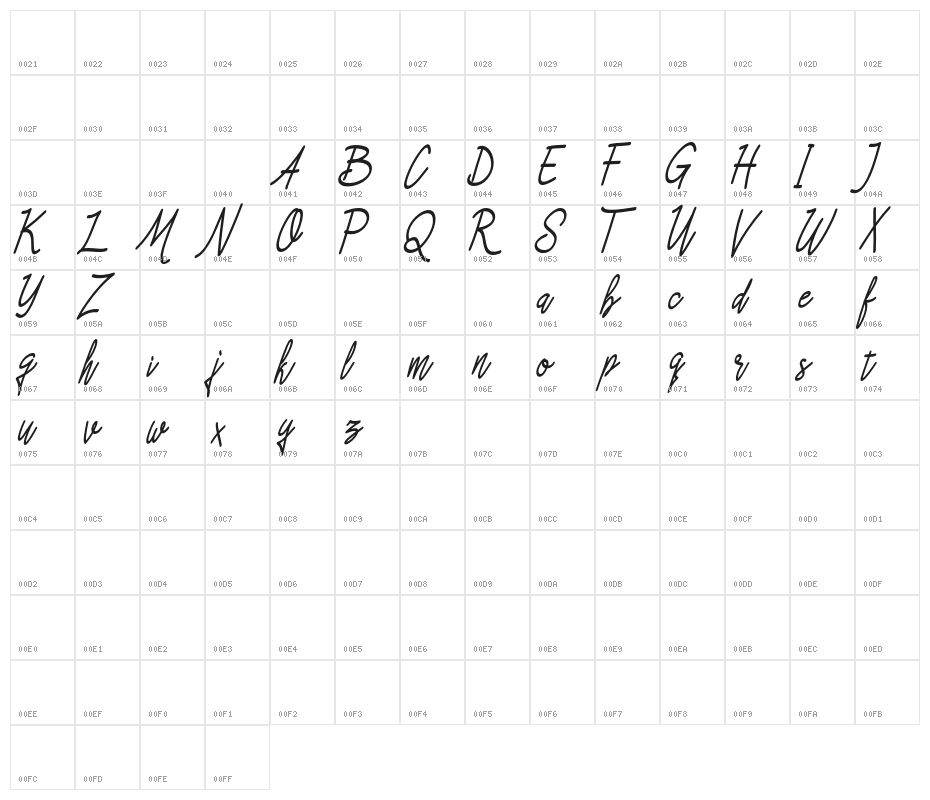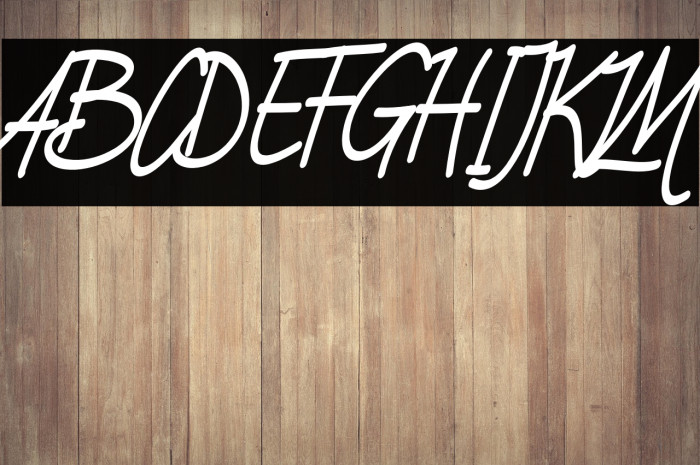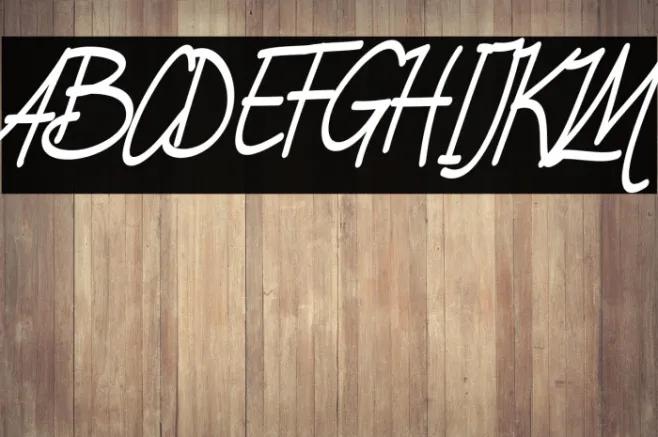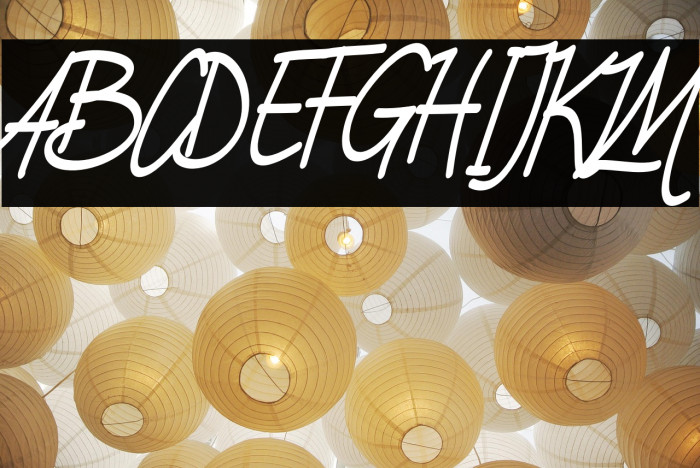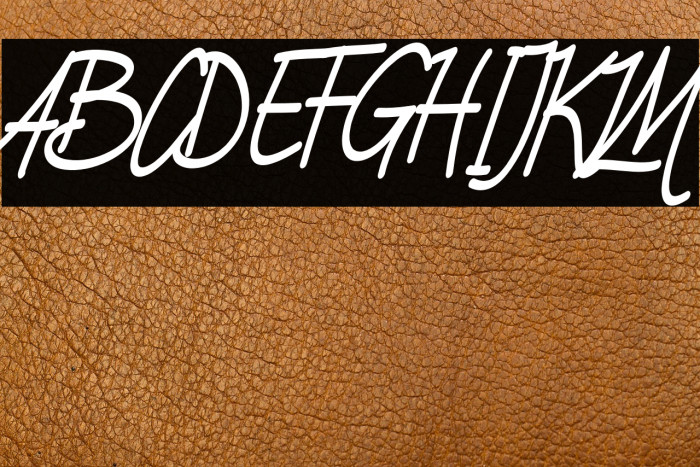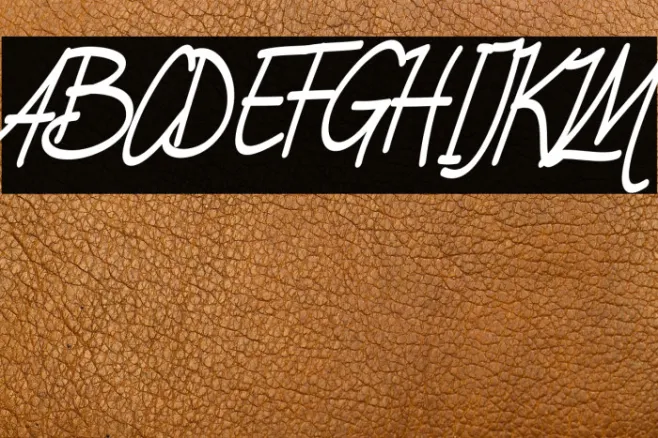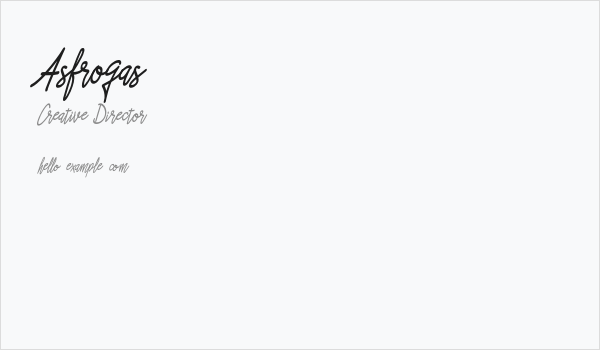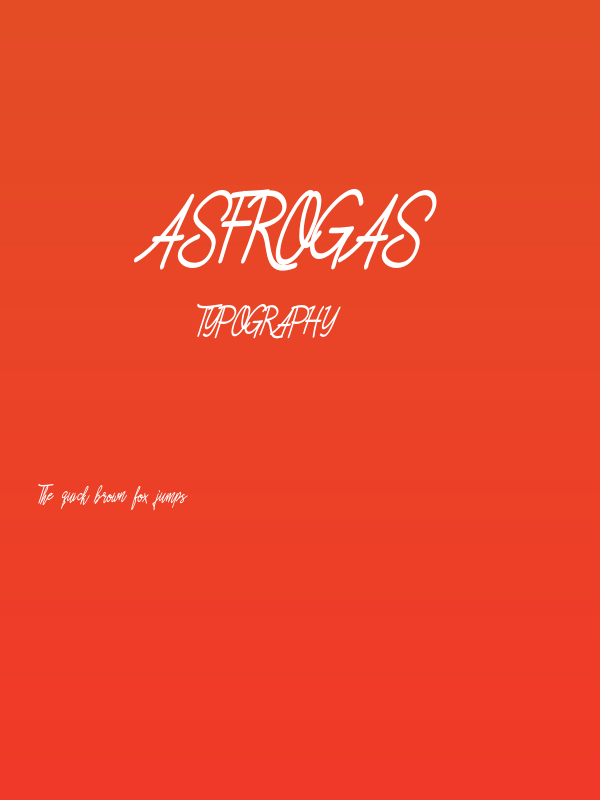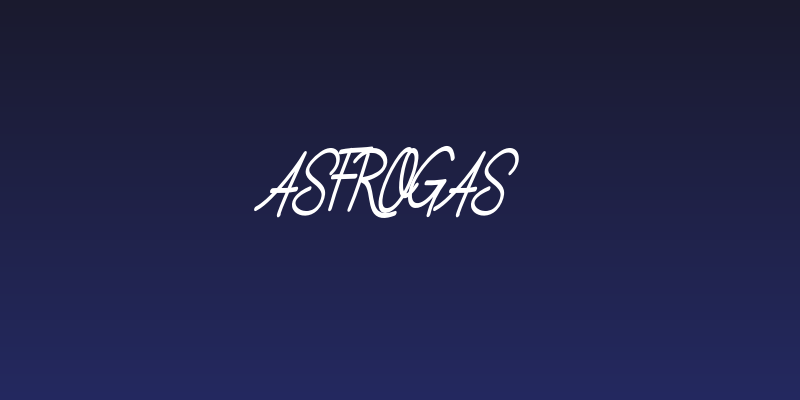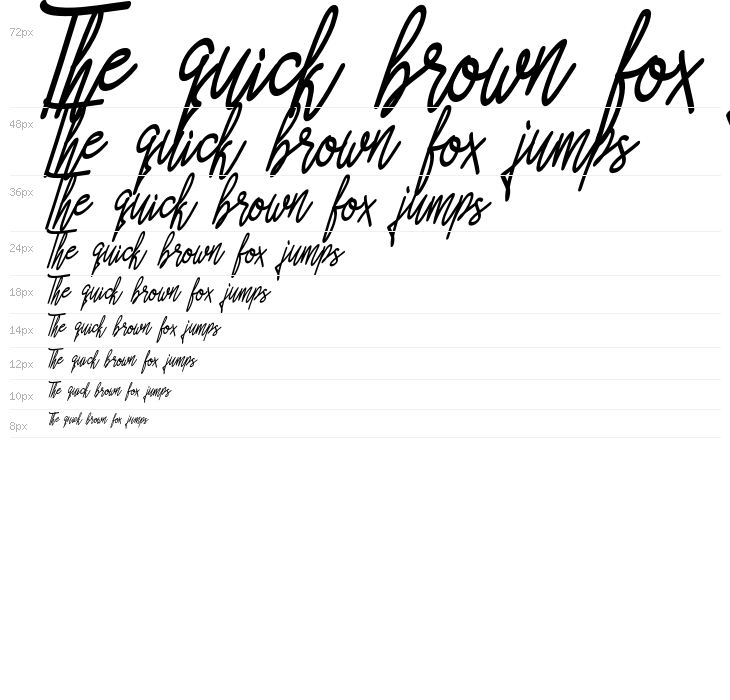
Asfrogas Font
Asfrogas Description
This font exhibits a dynamic and fluid script style, characterized by its cursive and connected letterforms. The strokes are smooth and flowing, creating a sense of movement and elegance. The uppercase letters are tall and slightly slanted, while the lowercase letters maintain a consistent baseline with occasional loops and flourishes. The overall appearance is both modern and expressive, making it suitable for creative and artistic projects. The font's design emphasizes a handwritten aesthetic, offering a personal and informal touch.
| Proposed Projects | Ideal for wedding invitations, greeting cards, logos, and branding materials that require a personal and elegant touch. |